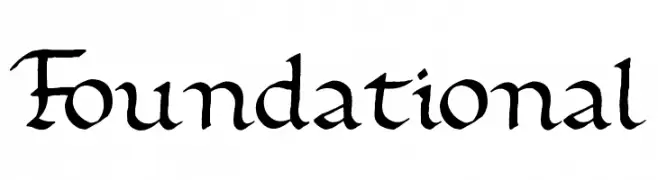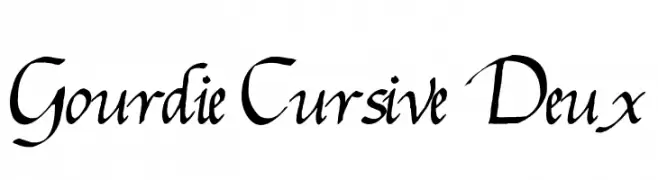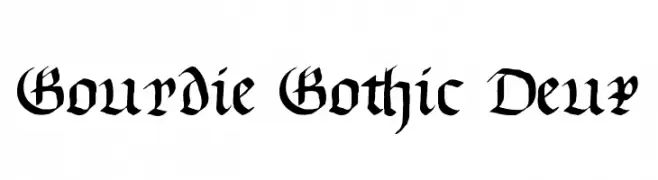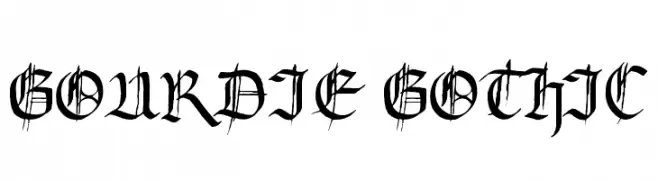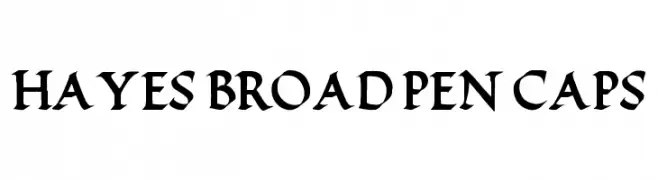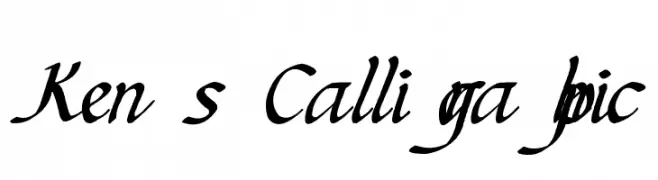
A decorative font with characters inside a US map silhouette featuring the American flag.
A classic, calligraphic font with medium contrast and elegant, flowing strokes.
A classic Gothic font with intricate, sharp edges and pointed serifs.
A bold, blackletter font with sharp, angular strokes and high contrast.
A medieval-style font with rounded forms and moderate contrast, ideal for historical themes.
A medieval-inspired font with rounded, flowing letterforms and a calligraphic style.
A bold, medieval-inspired font with sharp, angular strokes and decorative elements.
A classic calligraphic font with elegant, flowing strokes and traditional style.